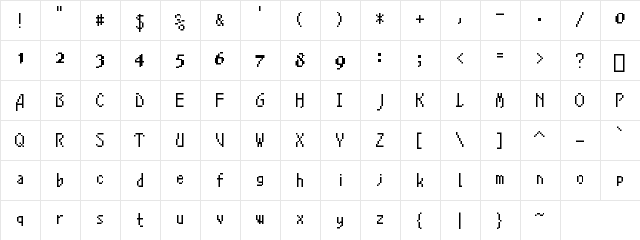
DoSbig Regular
| Designer | Nokami |
Design Context for DoSbig Typeface
DoSbig is a composed and adaptable typeface that performs quietly and consistently across a wide range of design contexts.